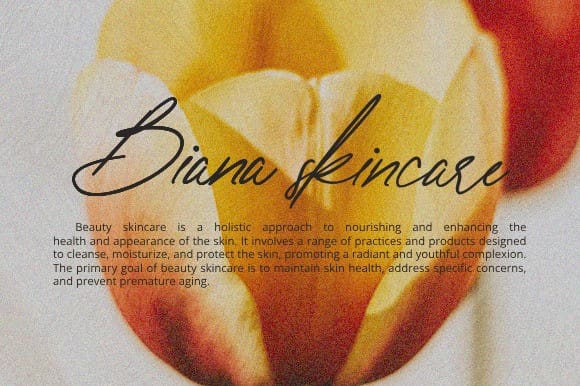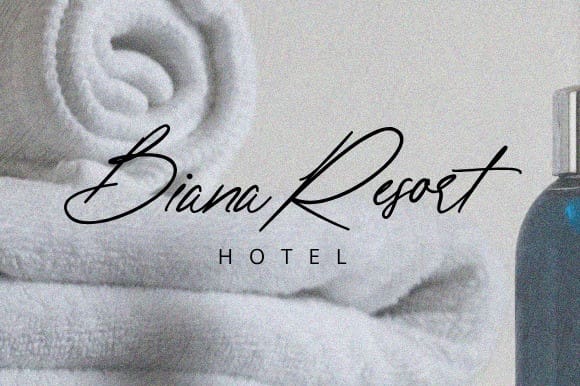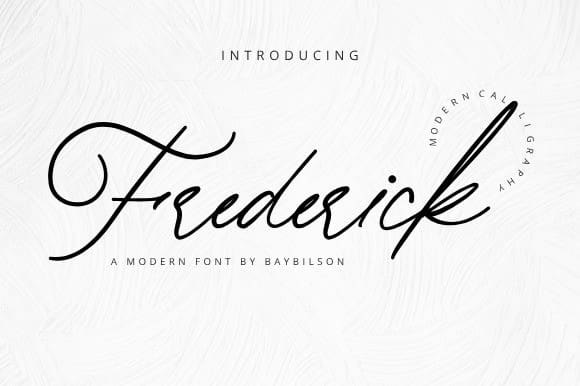
Frederick Script Font
Frederick Script Font is a versatile and elegant typeface that seamlessly blends classic aesthetics with a modern twist. Crafted with meticulous attention to detail, this font exudes sophistication and timelessness. The letterforms of “Frederick” boast clean lines and balanced proportions, ensuring legibility across a variety of applications.
The font’s character set includes a range of weights and styles, providing flexibility for various design projects. Whether used for editorial design, branding, or digital interfaces, “Frederick Script” maintains a sense of refinement and professionalism. Its graceful curves and distinct letter shapes contribute to a harmonious and visually pleasing reading experience.